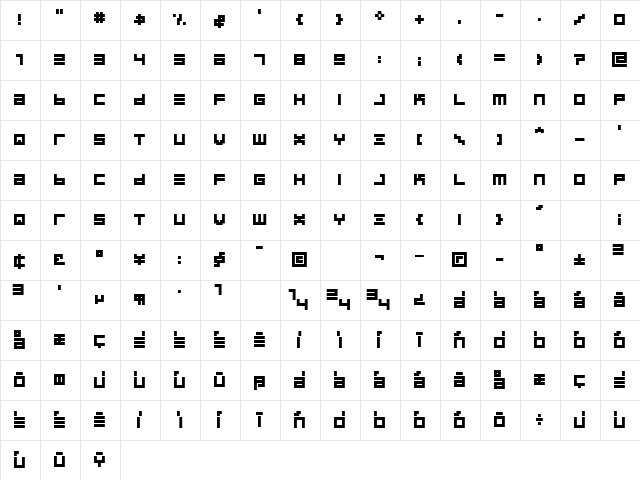
BIN Bold Regular
Design Context for BIN Bold Typeface
BIN Bold is a composed and adaptable typeface that performs quietly and consistently across a wide range of design contexts. The heavy weight commands attention and anchors typographic hierarchies.